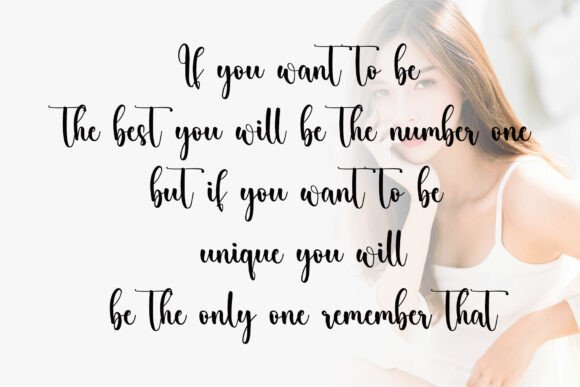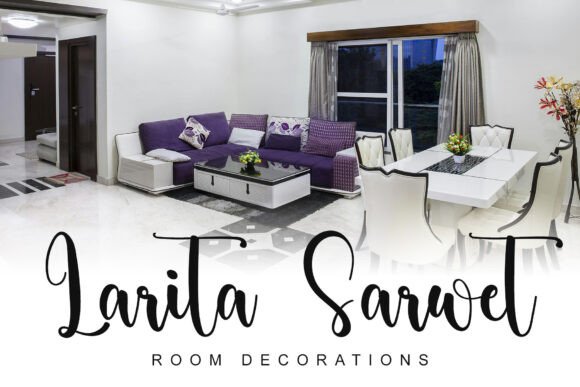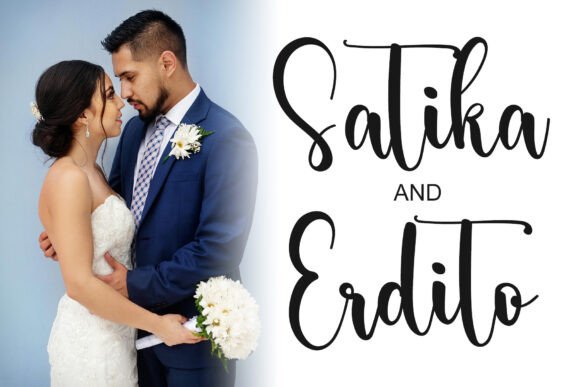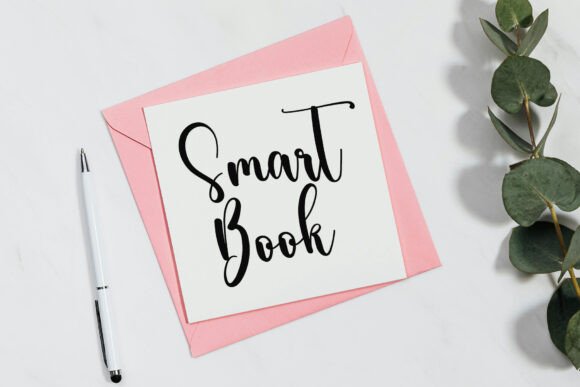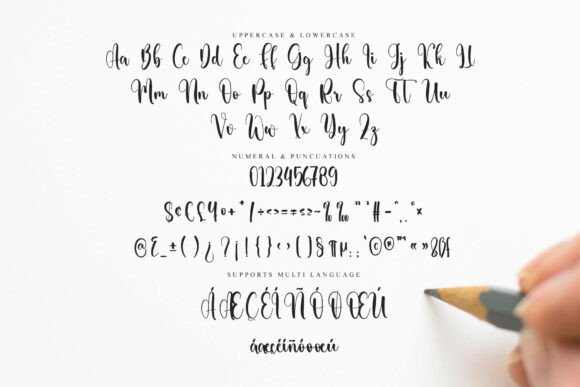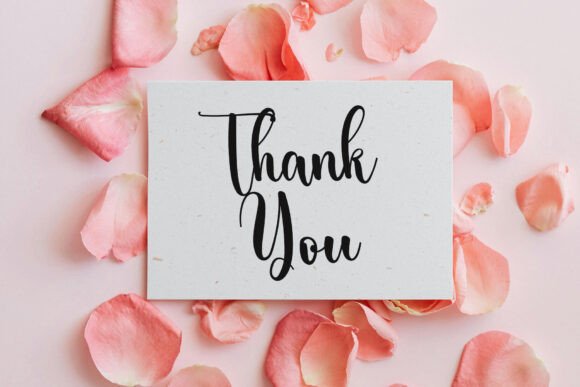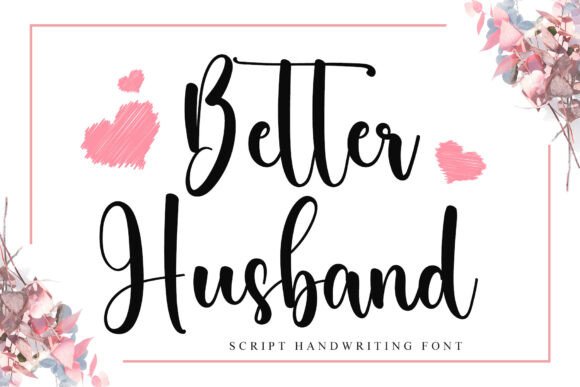
Better Husband Font: Adding a Touch of Warmth to Your Designs
In the world of typography, fonts play a crucial role in conveying emotions and personality. For designers and crafters looking for a font that exudes warmth and authenticity, Better Husband Font is an excellent choice. This delightful handwritten font is imbued with a sense of charm and whimsy, making it perfect for a variety of design projects.
The Characteristics of Better Husband Font
Better Husband Font is a handwritten font that boasts whimsical strokes and varied letterforms. Its unique characteristics evoke a sense of authenticity and charm, setting it apart from other fonts. The font’s warmth and personality shine through in its elegant, yet informal, design. This makes it an ideal choice for designers and crafters looking to add a personal touch to their work.
Perfect for Conveying Heartfelt Messages
Whether you’re creating invitations, greeting cards, or branding materials, Better Husband Font is perfect for conveying heartfelt messages. The font’s warm and charming nature makes it an excellent choice for projects that require a personal touch. Imagine sending out wedding invitations or anniversary cards with a font that exudes love and warmth. Better Husband Font is sure to make your designs stand out and leave a lasting impression.
One of the best things about Better Husband Font is its versatility in design. It can be used for a wide range of projects, from formal to informal, and from digital to print. The font’s elegant, yet playful, design makes it suitable for:
Why Choose Better Husband Font?
With so many fonts available, why choose Better Husband Font? Here are a few reasons why designers and crafters love this font:
- Unique and distinctive: Better Husband Font has a unique and distinctive design that sets it apart from other fonts.
- Warm and inviting: The font’s warm and inviting nature makes it perfect for conveying heartfelt messages.
- Versatile: Better Husband Font can be used for a wide range of design projects, from formal to informal.
- Easy to read: Despite its whimsical design, Better Husband Font is easy to read, making it suitable for body text and headlines.
Tips for Using Better Husband Font
To get the most out of Better Husband Font, here are a few tips:
- Pair with complementary fonts: Pair Better Husband Font with complementary fonts to create a visually appealing design.
- Use for headlines and titles: Use Better Husband Font for headlines and titles to add a touch of warmth and personality to your design.
- Keep it simple: Don’t overcomplicate your design. Keep it simple and let Better Husband Font shine.
Better Husband Font is a delightful handwritten font that adds a touch of warmth and personality to any design. Its whimsical strokes and varied letterforms evoke a sense of authenticity and charm, making it perfect for conveying heartfelt messages. Whether you’re a designer or crafter, Better Husband Font is an excellent choice for a wide range of design projects. So why not give it a try and see how it can elevate your designs?